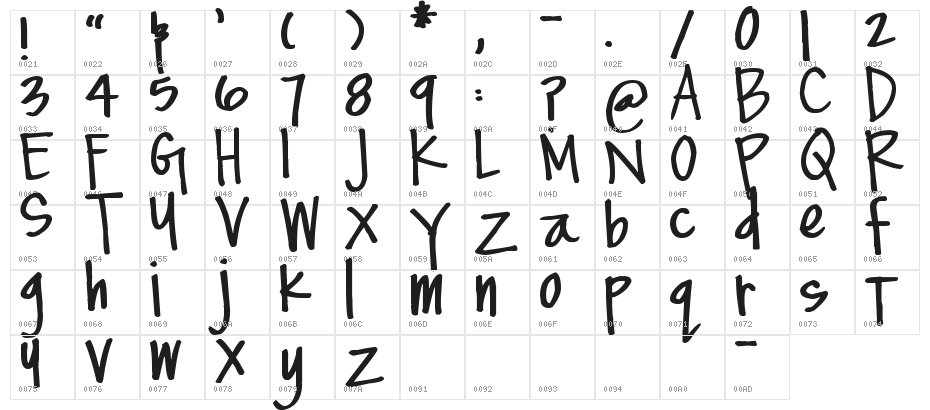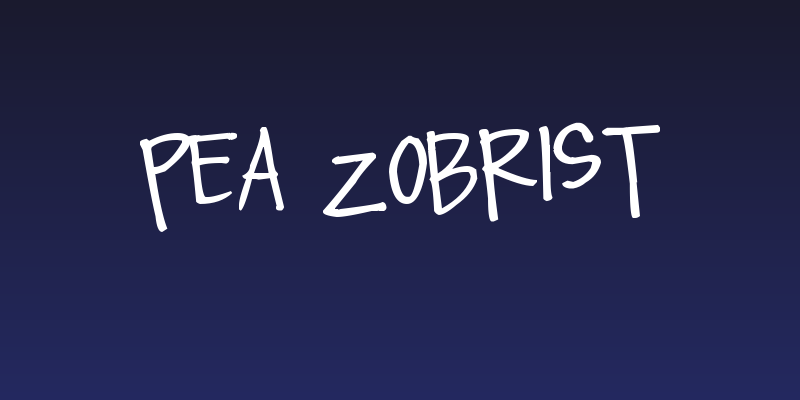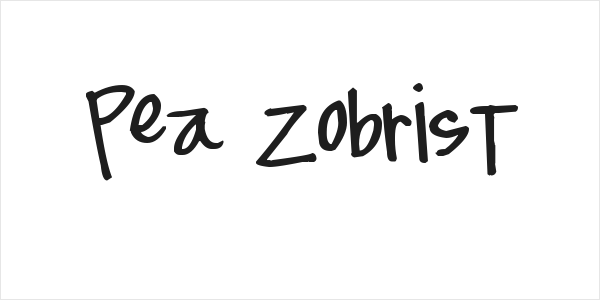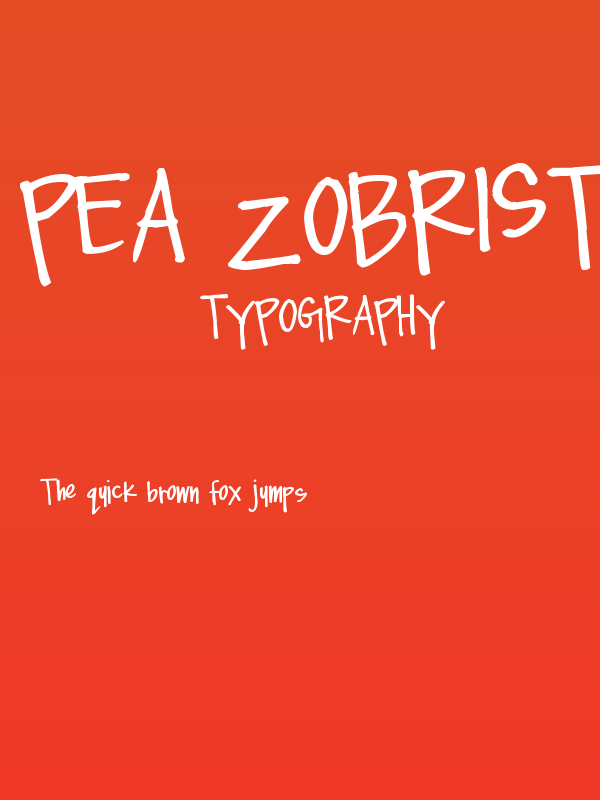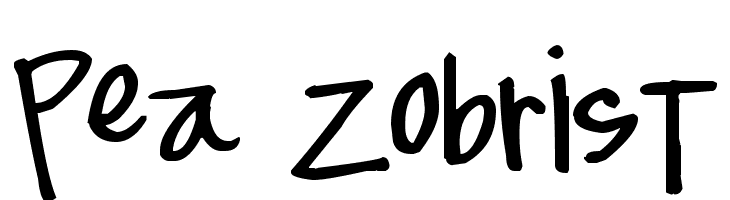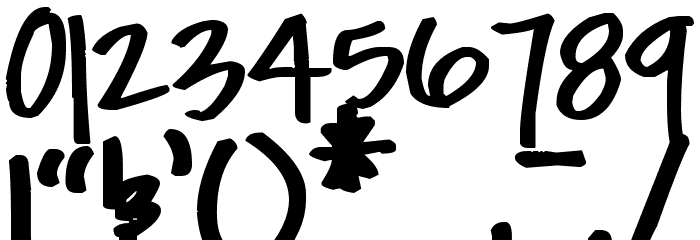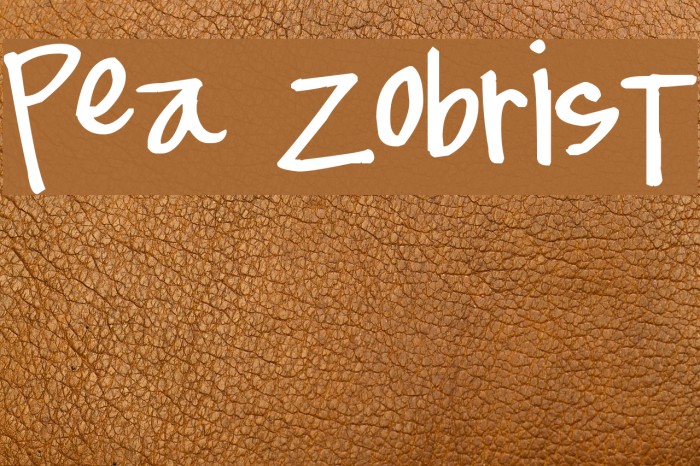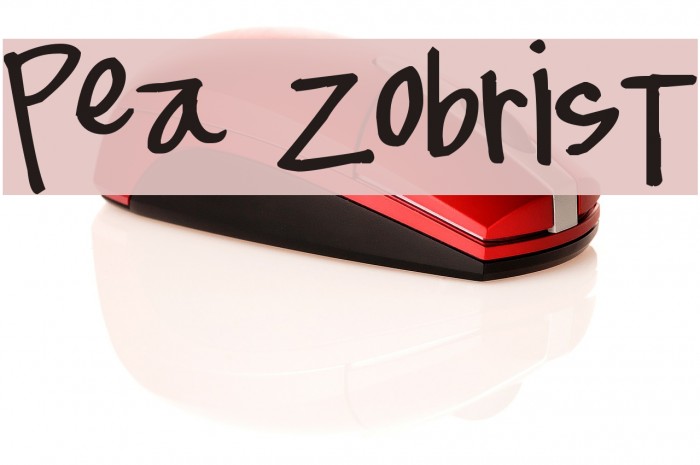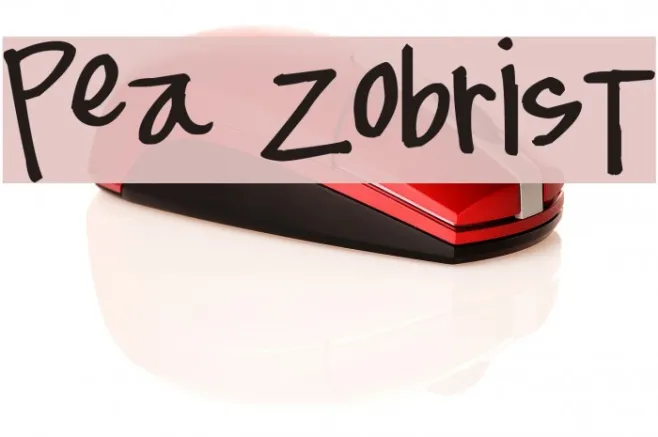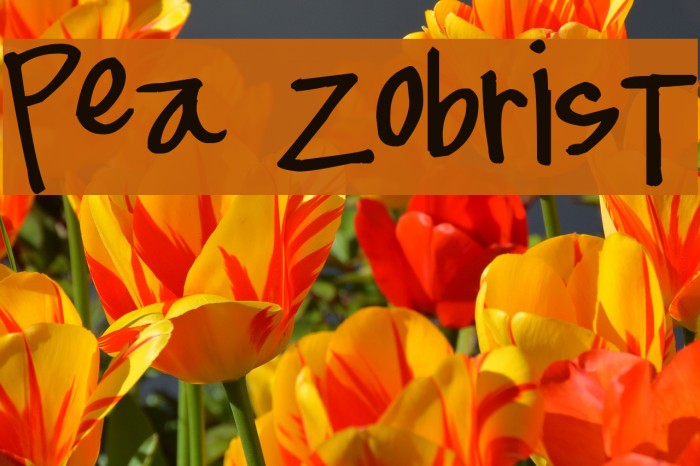
Pea Zobrist Font
Pea Zobrist Description
This playful and energetic font features a handwritten style with a casual, informal appearance. The letters are slightly irregular, giving it a personal and authentic touch. The uppercase characters are bold and prominent, while the lowercase letters maintain a consistent flow with a slightly smaller size. Numbers and special characters are crafted with the same lively style, ensuring a cohesive look across all text. The font's unique character is enhanced by its uneven baseline and varying stroke widths, which add to its charm and versatility.
| Overall Style | Casual |
| Use Case | Headlines, Informal text, Creative projects |
| Proposed Projects | Ideal for greeting cards, children's books, playful branding, and social media graphics. |